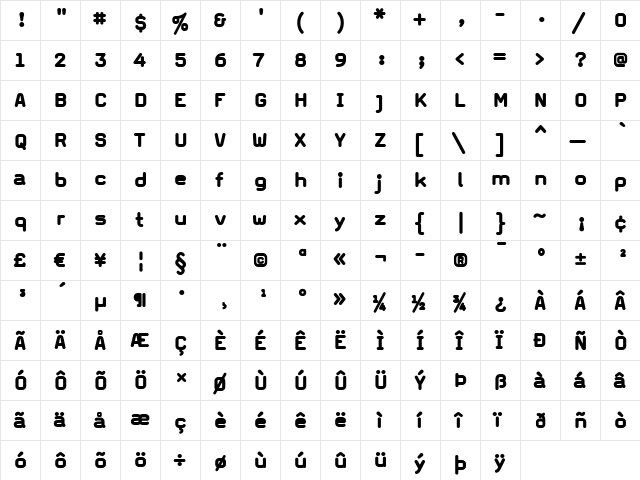
MagdaClean Black Font Preview
MagdaClean Black
MagdaClean Black Font Details
Design Context for MagdaClean Typeface
MagdaClean offers clean, dependable letterforms without strong stylistic allegiance, making it a practical choice for designers who need flexibility.